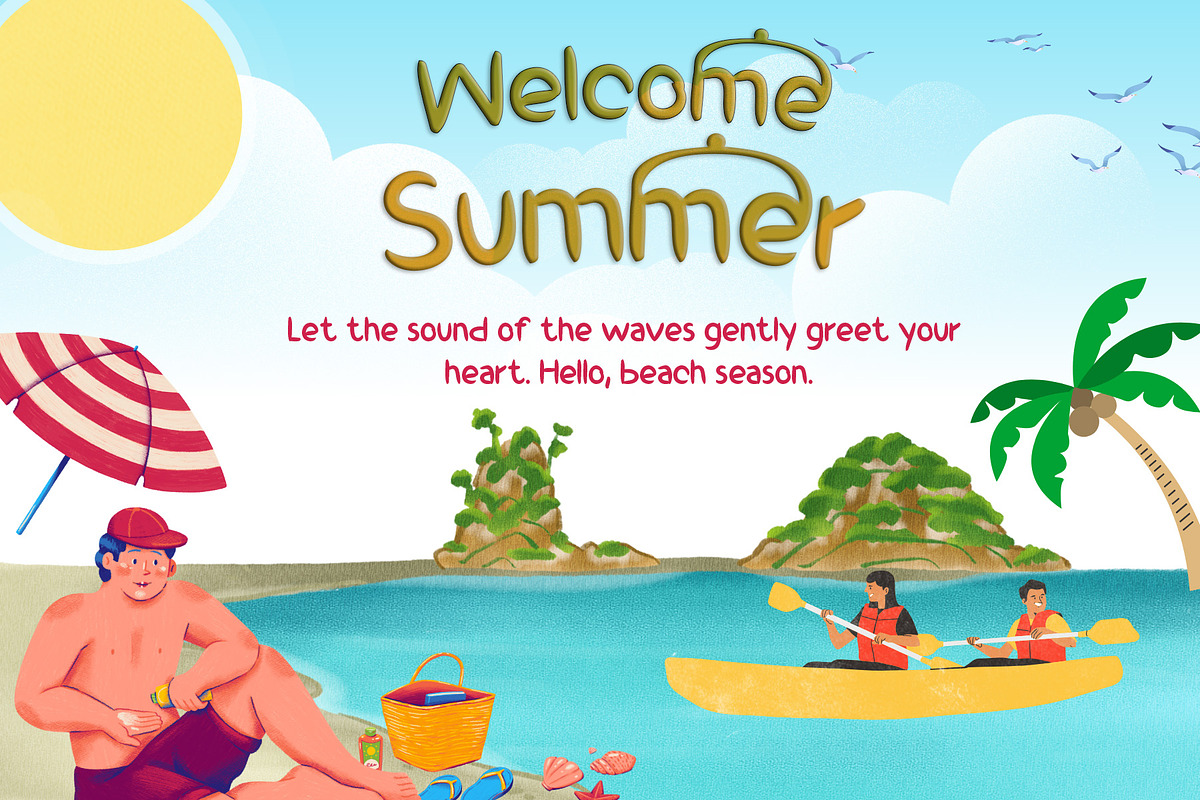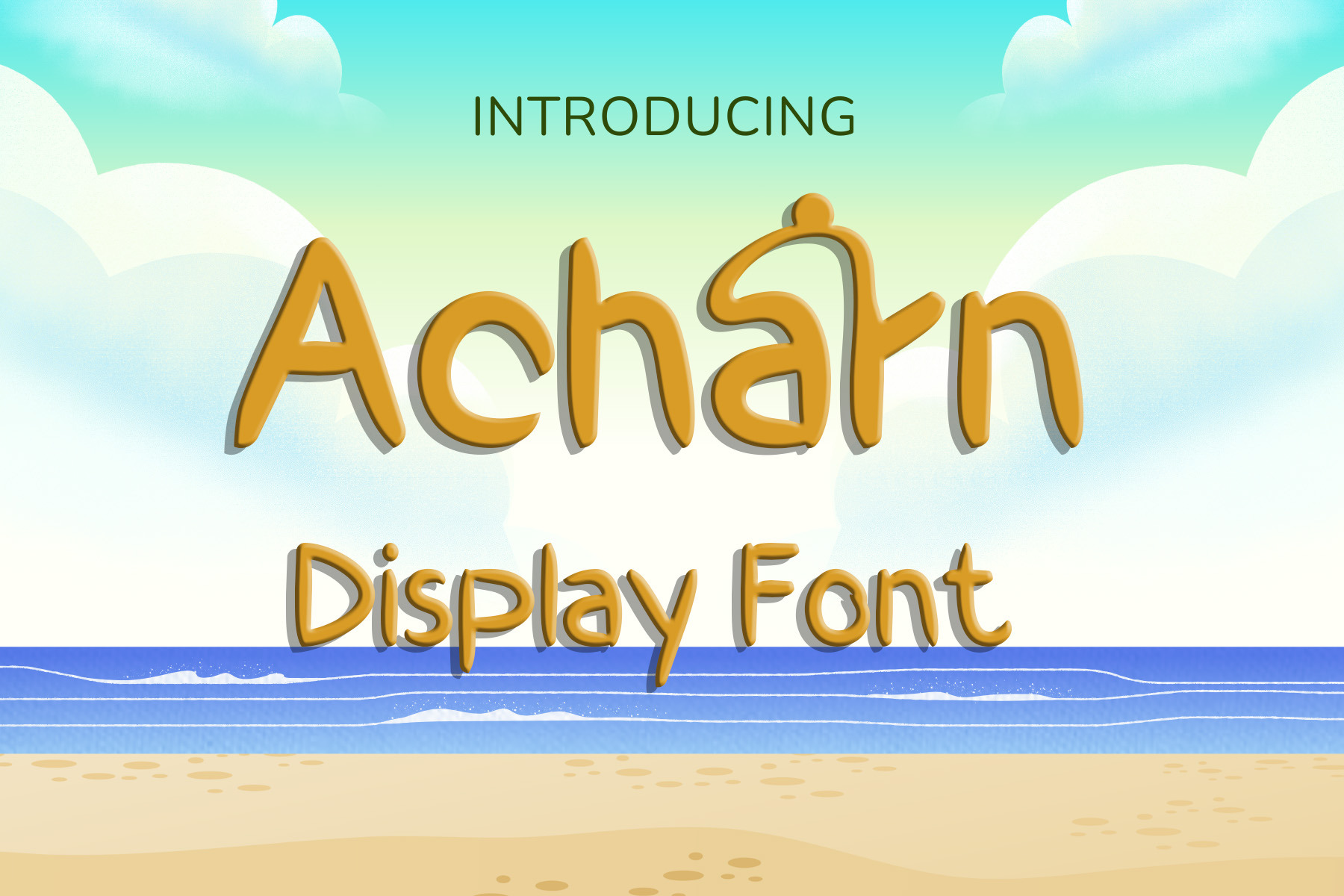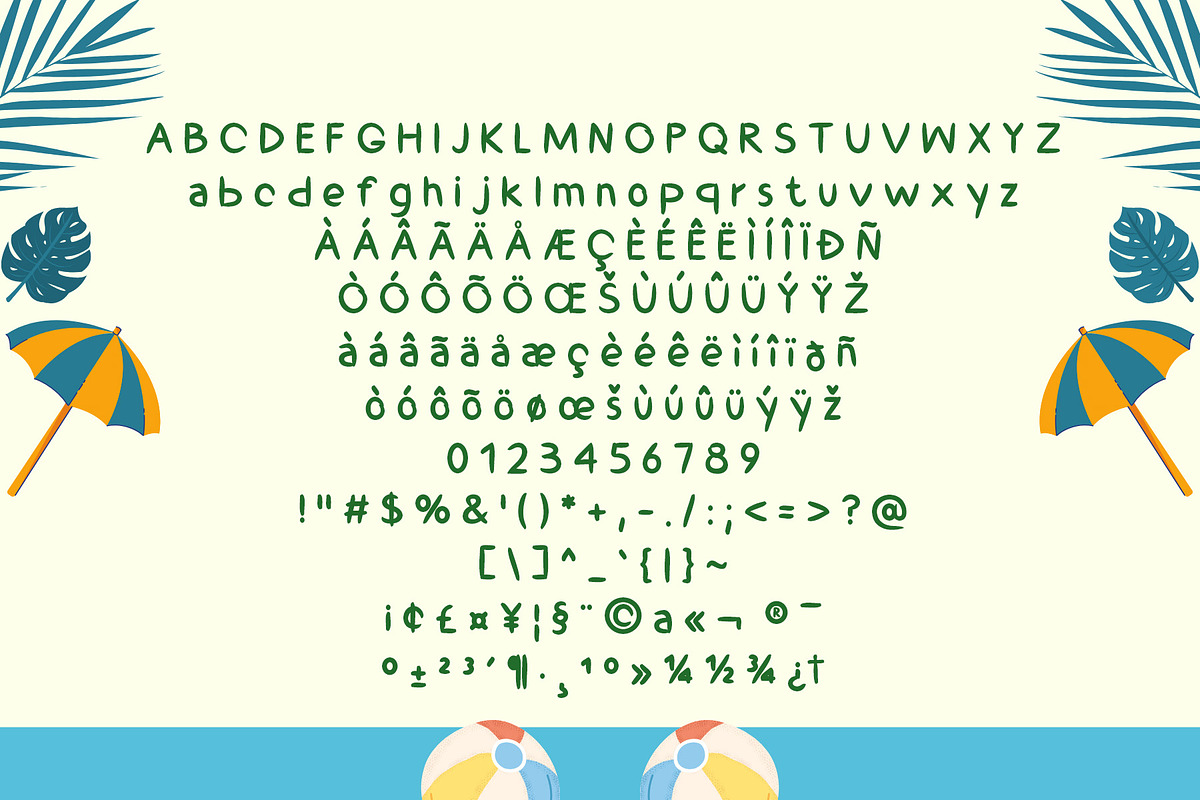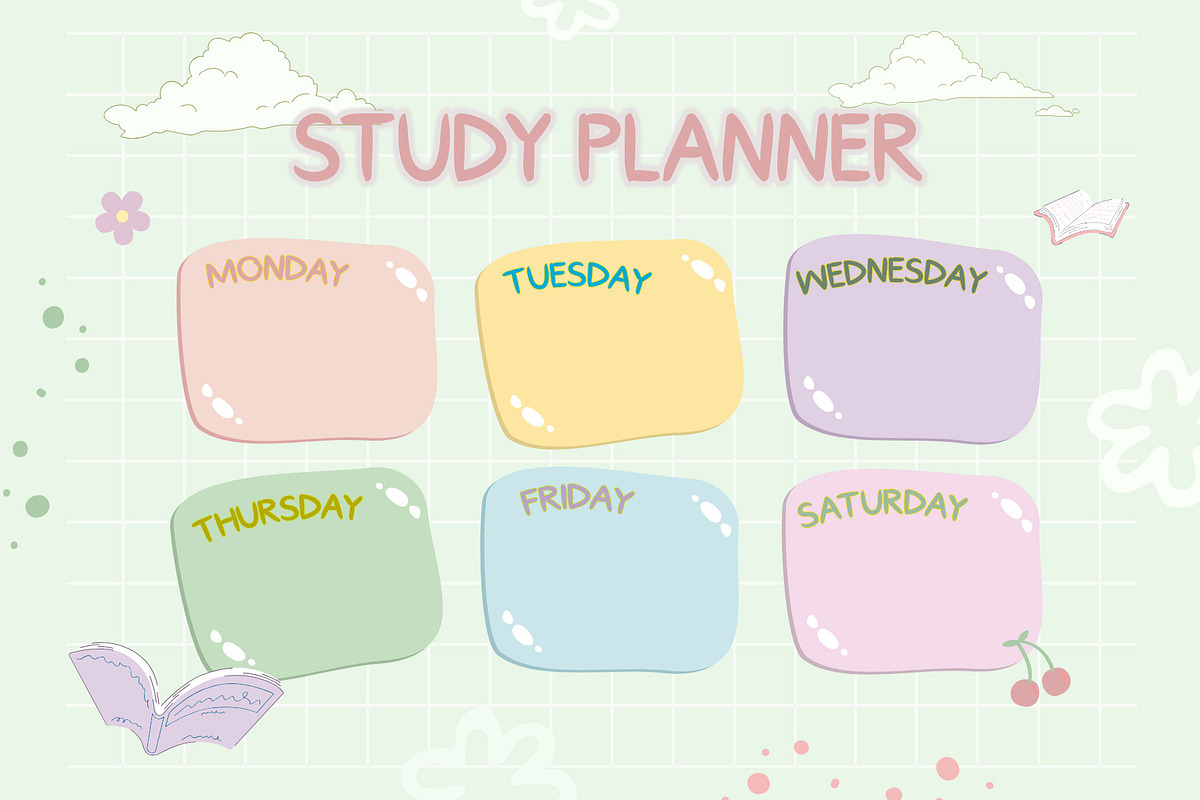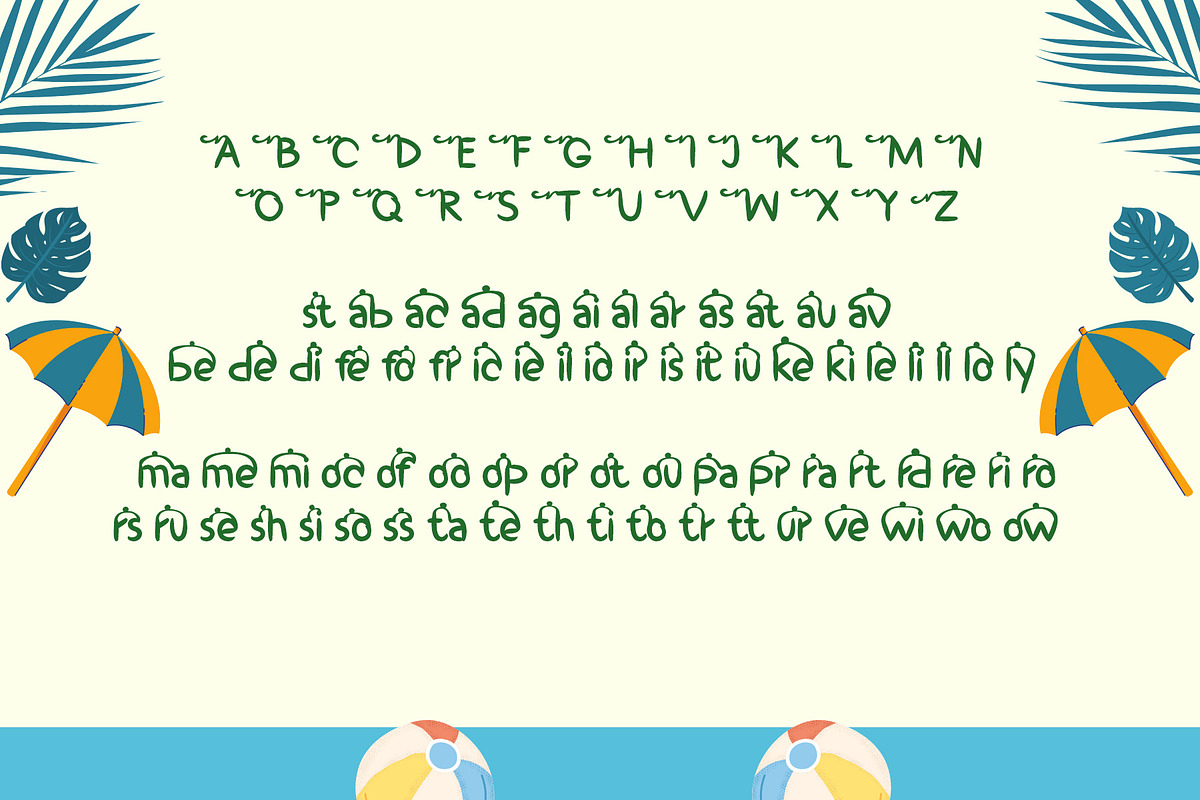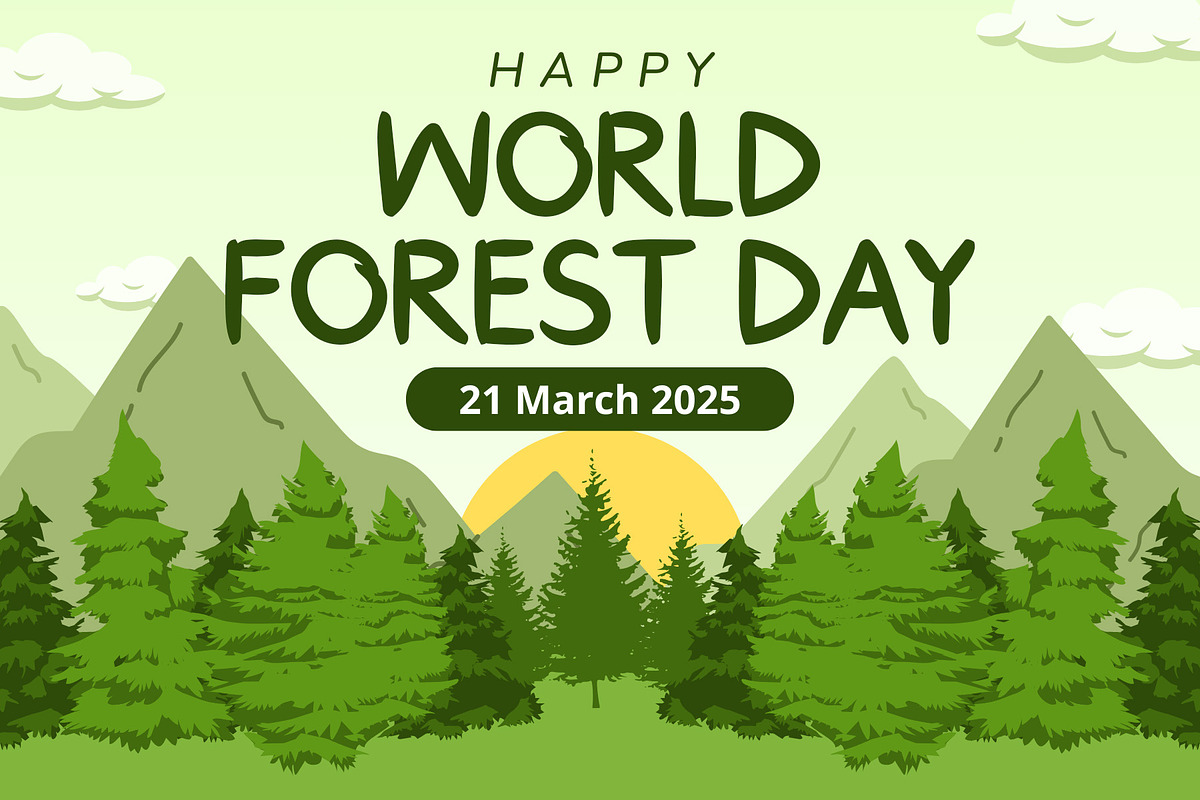
Acharn – Display Font
Introducing Acharn!
Acharn is a display font that brings the spirit of adventure and creativity to every design. Inspired by the freedom of hand-drawn lettering and the beauty of organic forms, Acharn combines playful shapes with bold strokes to create a style that is both striking and approachable.
This font is perfect for designers who want to capture attention while keeping a warm and cheerful tone. Use it for posters, summer-themed projects, educational materials, packaging, or branding that needs a fun twist. Its whimsical details give every word a fresh, lively energy that instantly connects with viewers.
This font allows you to use decorative glyphs even in applications that do not support OpenType features.
This font includes special decorative glyphs that can be accessed through simple typing shortcuts.
Example:
- Axx→ Decorative A (if available)
- aX → Decorative a (if available)
And also:
- AxX→ Decorative A2 (if available)
- aXX→ Decorative a2 (if available)
To separate ligatures:
- Insert the shortcut xXx between two characters.
- Example: ab → axXxb → a b